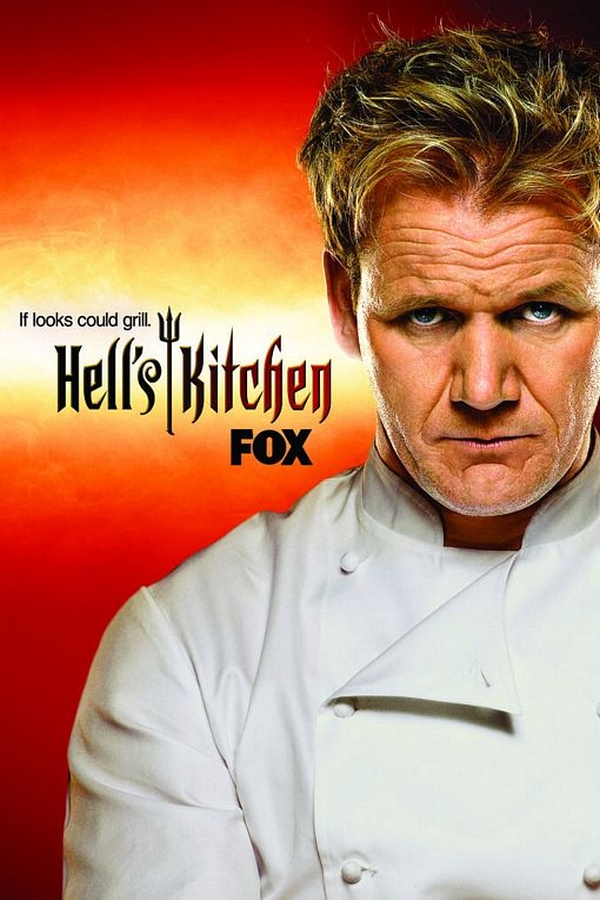
Hell's Kitchen Font
Fonts in UseHell’s Kitchen is a cooking reality show that airs on FOX. It first premiered in 2005 and is hosted by celebrity chef Gordon Ramsay, who puts aspiring chefs through grueling challenges to determine who will win a job as head chef at a prestigious restaurant.
It is likely that the Kruella typeface, which was created by Margo Chase, was used for the logo on the TV show. This blackletter font is commercially available, and further information on it can be accessed here.